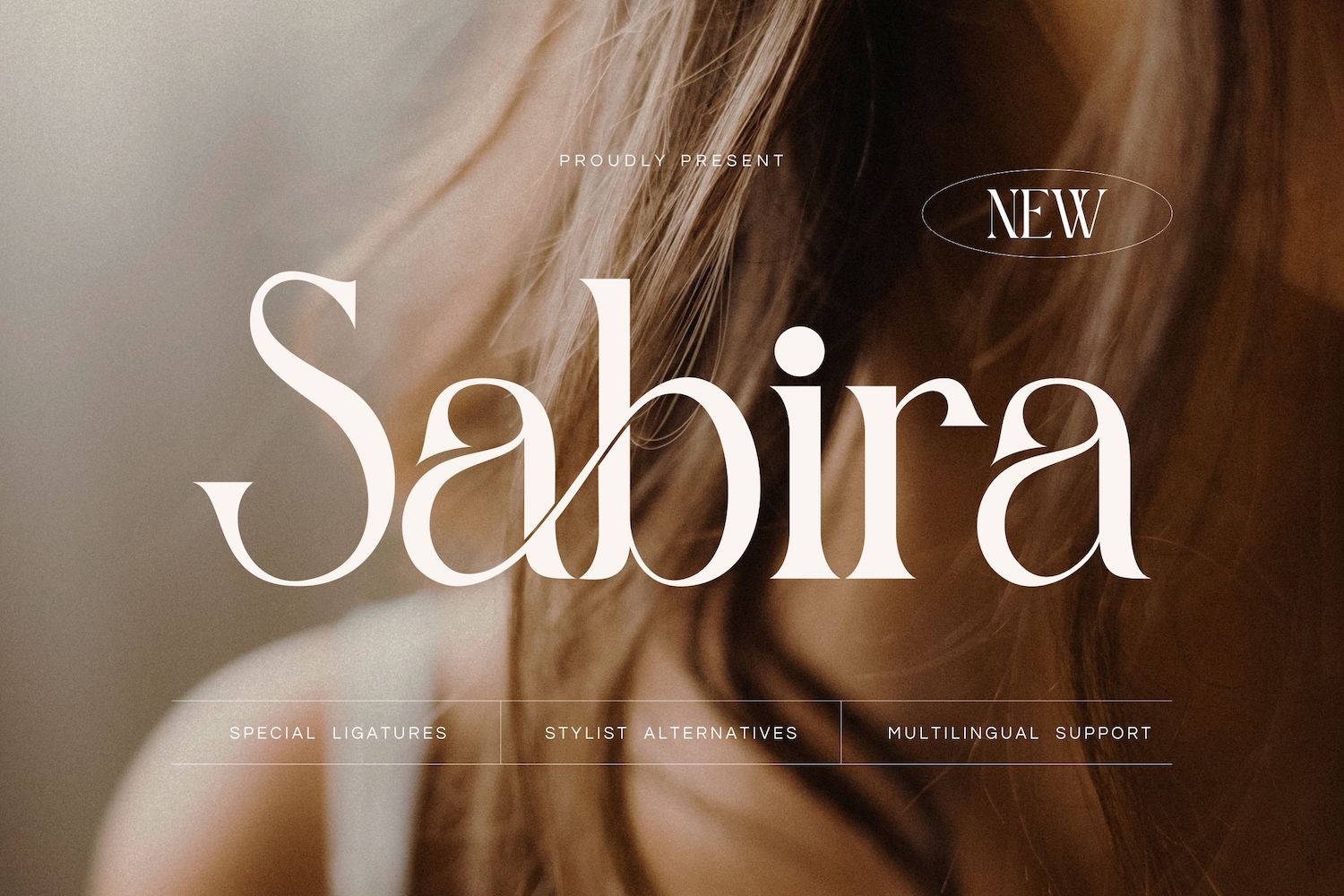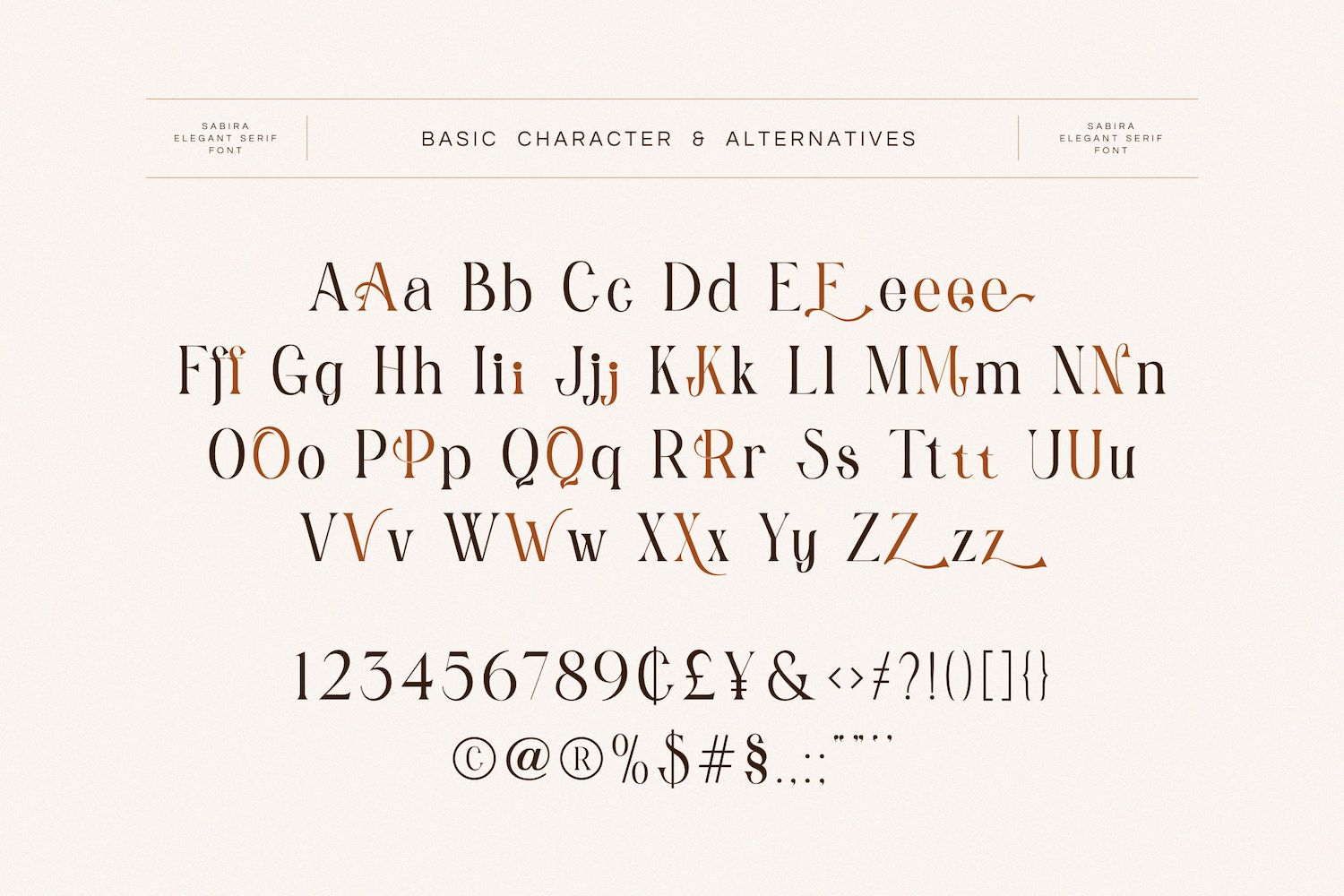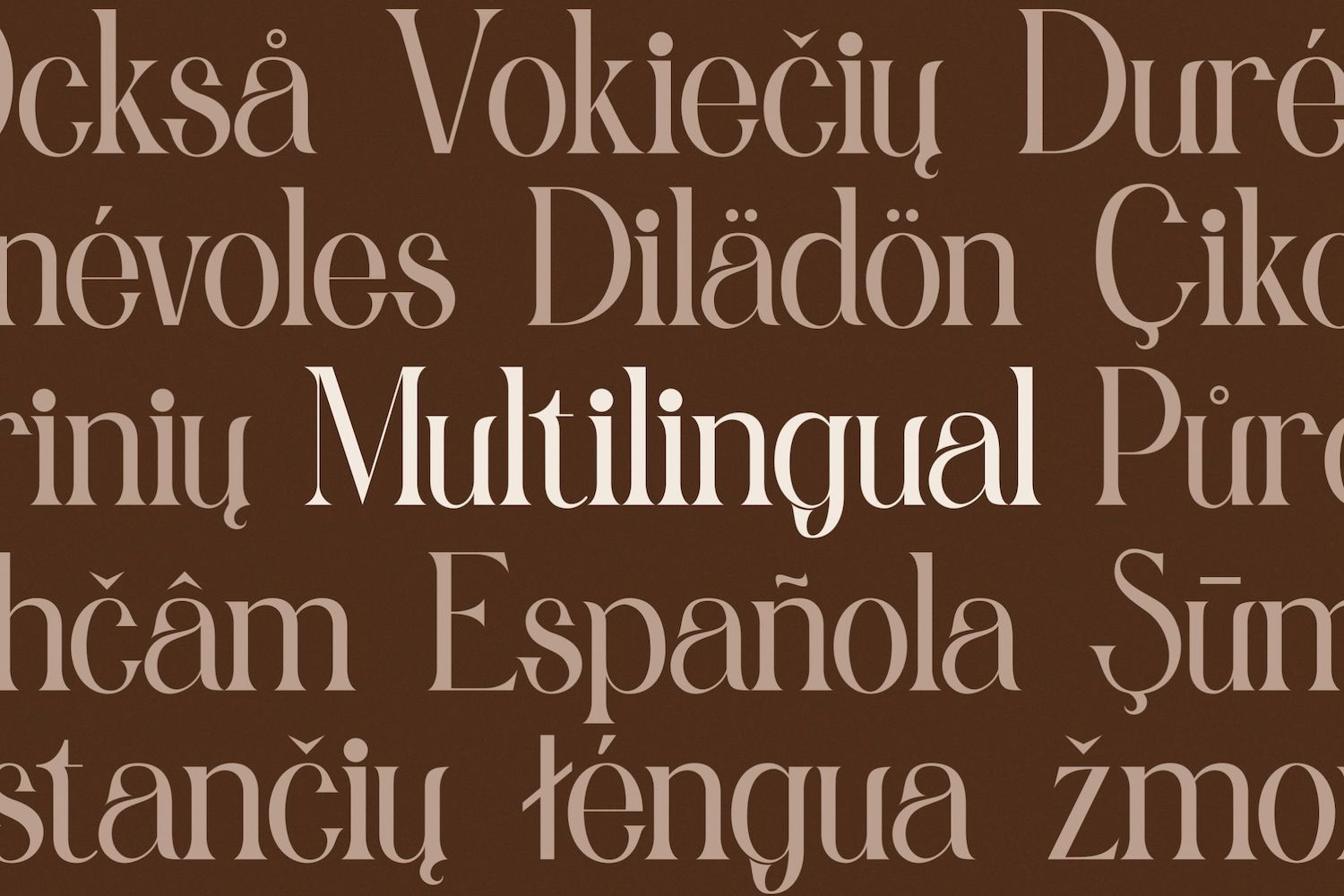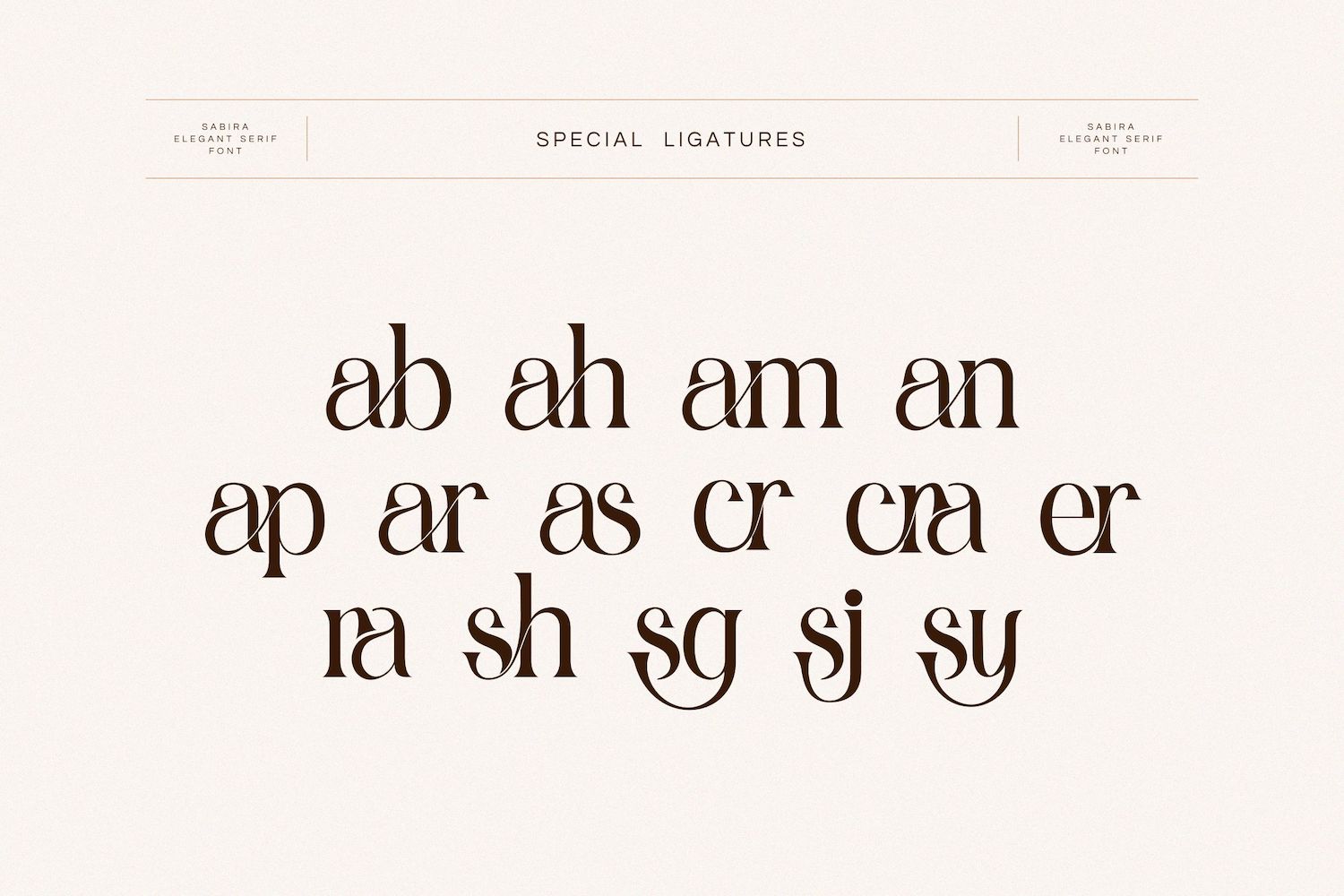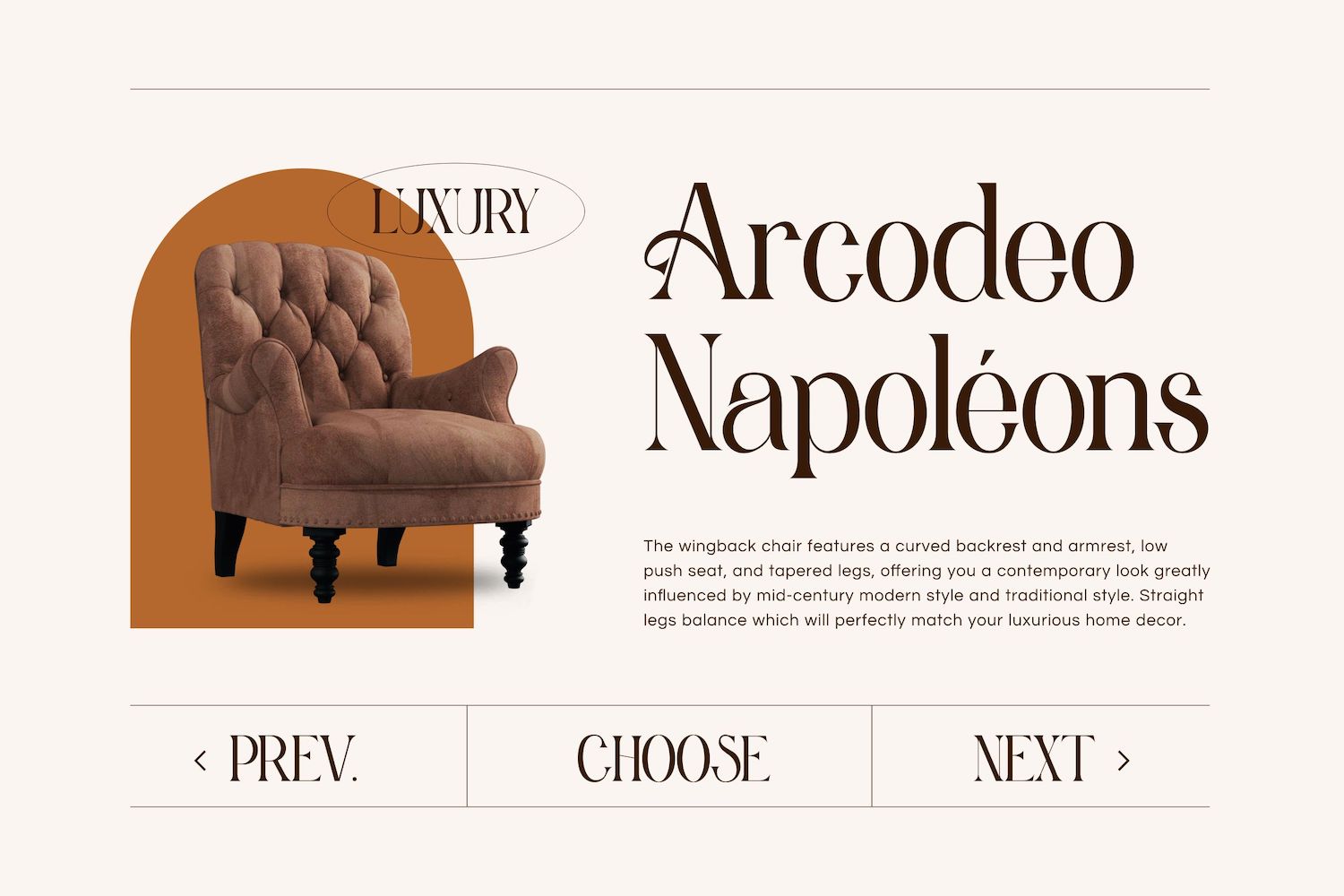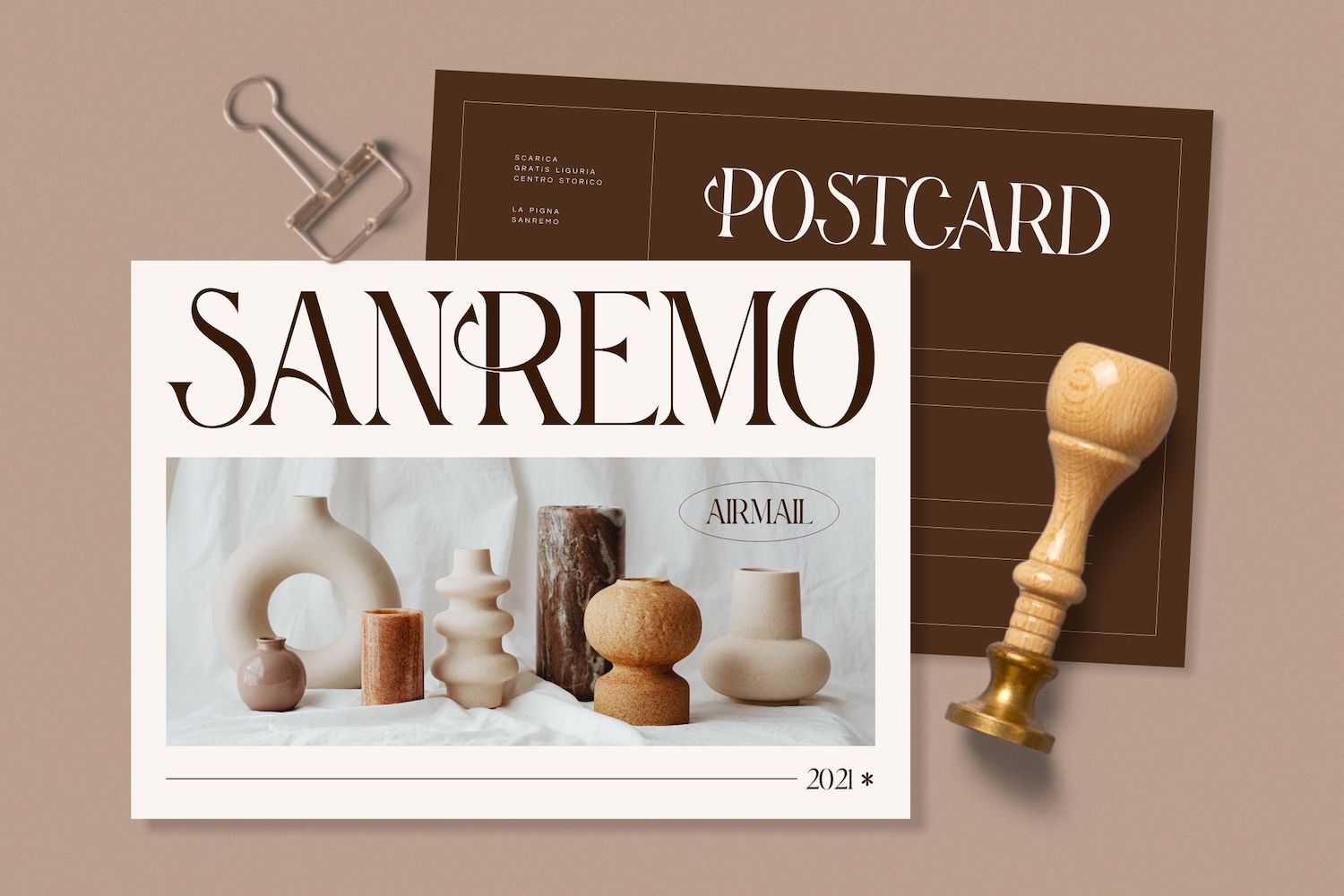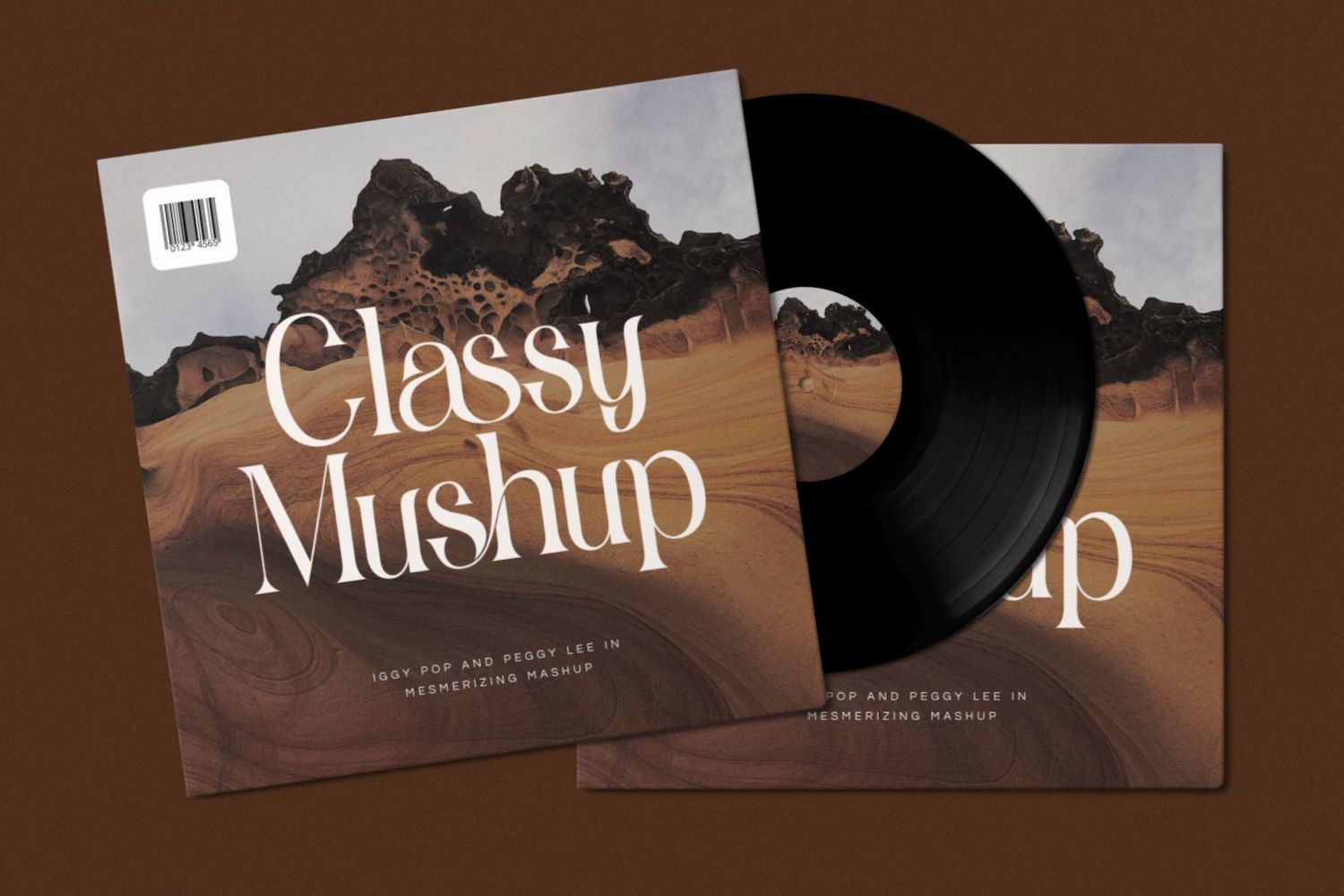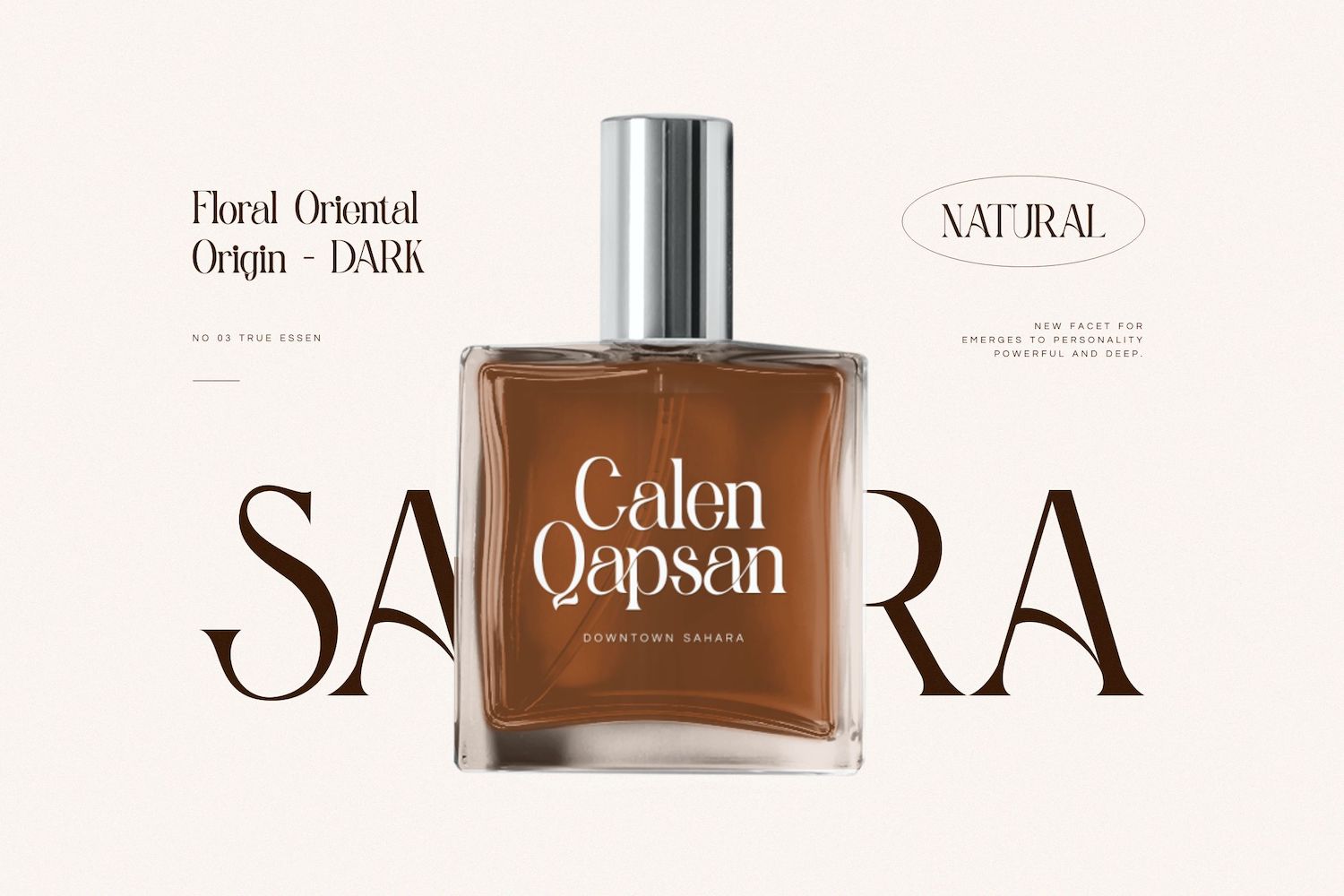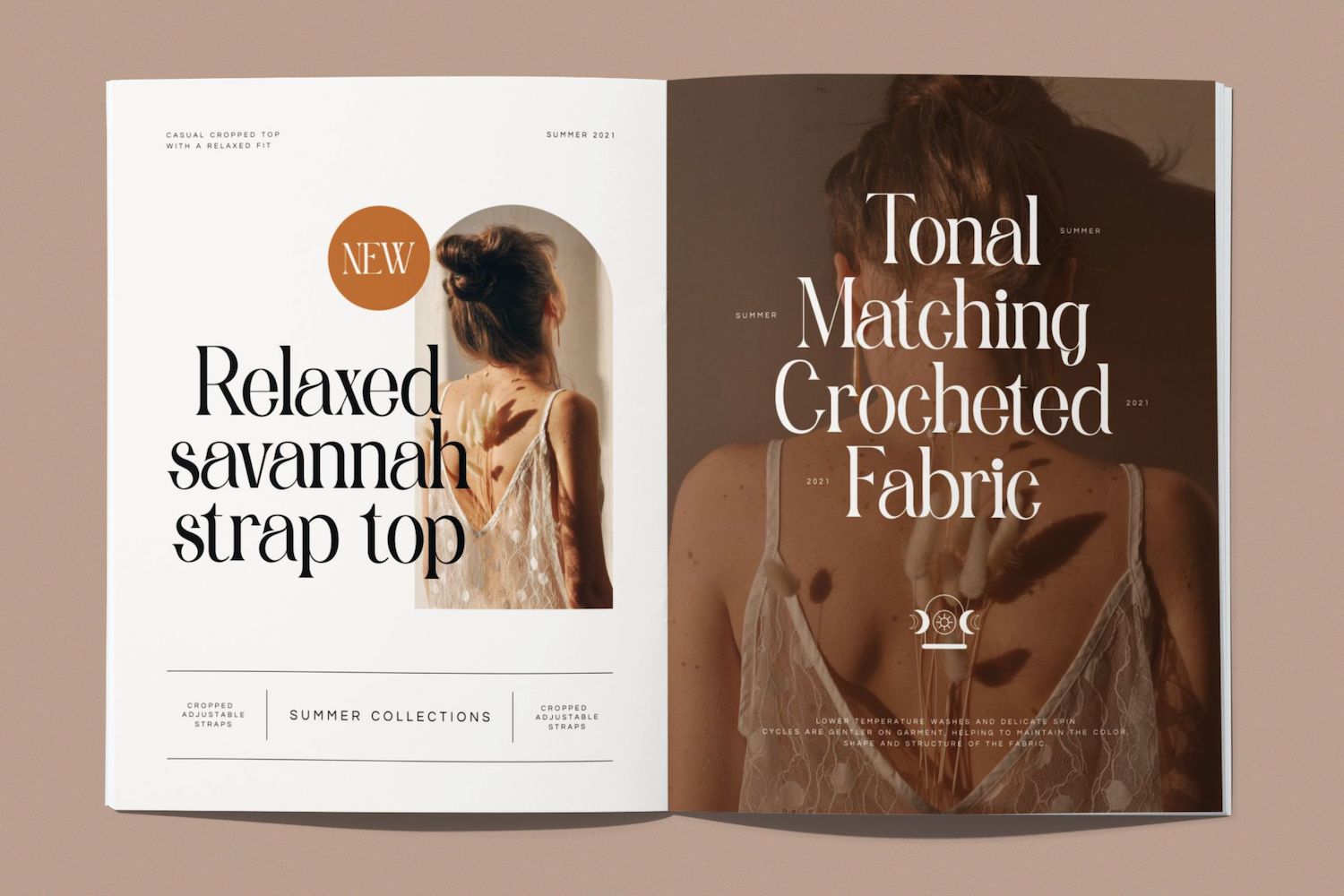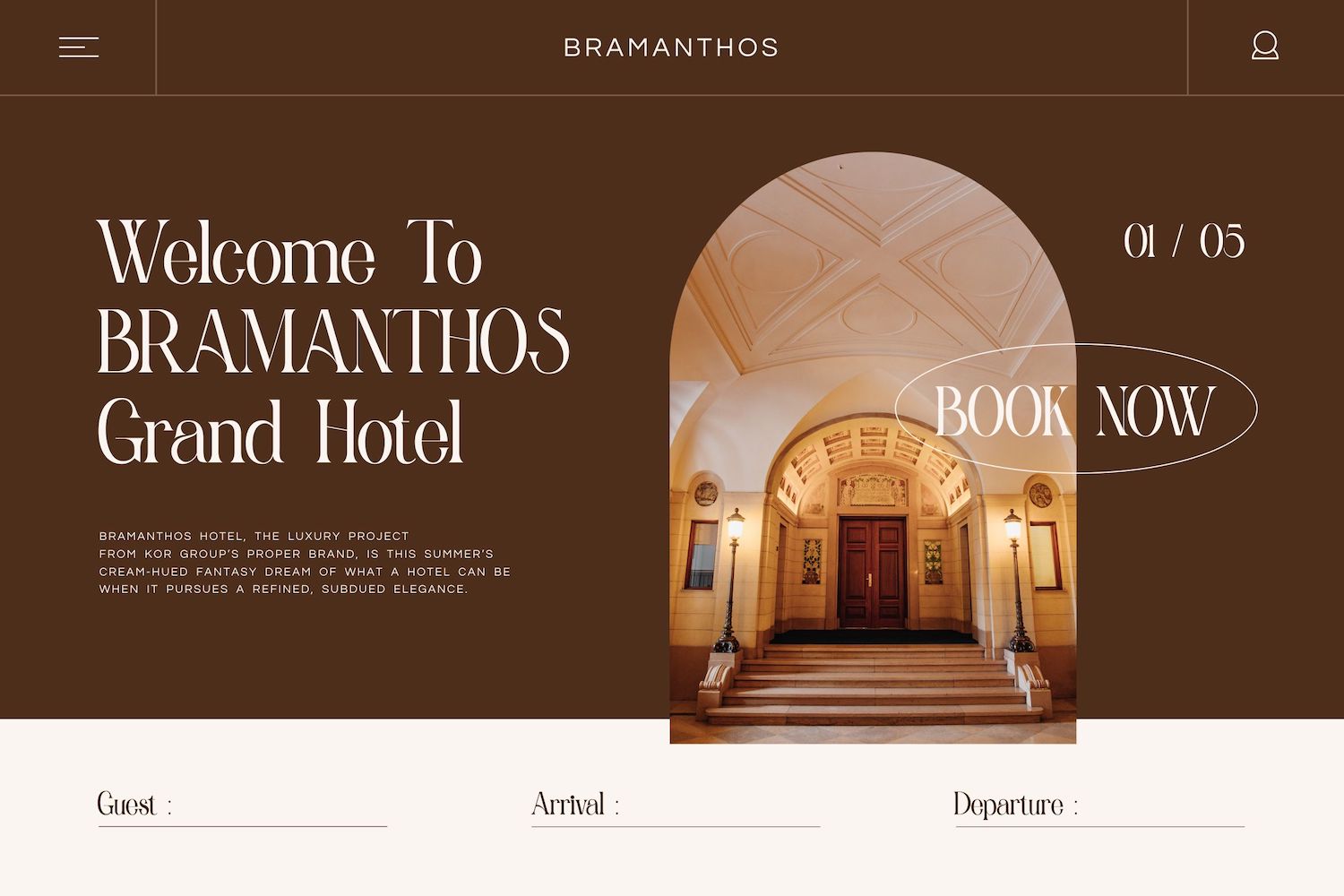
Sabira
Sabira is an elegant serif typeface that blends classic beauty with modern sophistication. Designed with graceful high-contrast strokes and refined curves, Sabira delivers timeless charm and is enhanced with stylistic alternates and unique ligatures. Its sculpted terminals and smooth swashes provide a luxurious and distinctive appeal, making it ideal for upscale branding, editorial layouts, and premium packaging.
This font supports multilingual characters and offers extensive stylistic sets, perfect for projects seeking refinement and high-end aesthetics. Whether you’re designing for fashion lookbooks, wedding invitations, or perfume labels, Sabira elevates your typography with its expressive elegance and visual harmony.